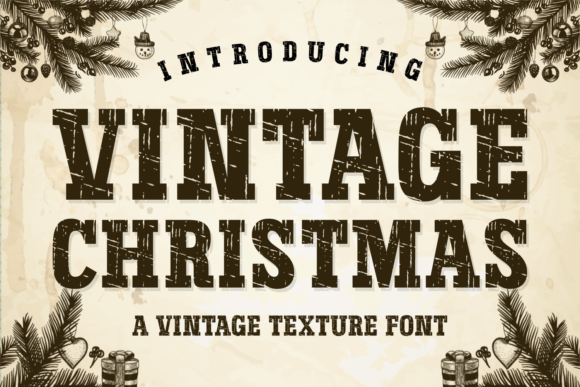
If you’re searching for a timeless, nostalgic typeface to give your holiday designs that classic retro charm, the Vintage Christmas Font is just what you need. This warm, decorative style combines the elegance of old-fashioned lettering with the joyful essence of Christmas.
What Is a Vintage Christmas Font?
A Vintage Christmas Font is a retro-style typeface inspired by old postcards, classic signage, and hand-painted lettering from the mid-1900s. It often features bold curves, ornamental details, and subtle textures that bring a nostalgic feeling — perfect for festive themes.
This kind of font evokes the warmth of handwritten cards, cozy family gatherings, and traditional holiday decorations. Designers often use the Vintage Font Download to bring authenticity and emotional depth to their work.
Common uses include:
Christmas cards and invitations
Holiday posters and banners
Product packaging
YouTube thumbnails and video intros
Event flyers and greeting designs
Whether you’re designing something elegant or playful, the Christmas Vintage Font can help your message feel heartwarming and timeless.
Why Choose a Vintage Christmas Font?
Modern minimalist fonts are great, but sometimes you need that nostalgic touch that reminds people of old-fashioned Christmas charm. The Vintage Christmas Font does exactly that.
Here’s why designers love using it:
Retro Aesthetic: Gives your work a classic, timeless feel reminiscent of traditional print design.
Festive Appeal: Perfectly suited for Christmas and holiday-themed projects.
Versatile Use: Works beautifully in logos, cards, packaging, and posters.
High Readability: Despite its decorative style, the font maintains clear letterforms and balance.
If you’re designing something that needs both elegance and nostalgia, this font offers the best of both worlds.
Where to Use the Vintage Christmas Font
Once you get your Vintage Christmas Font Download Free, you’ll have endless creative options. Here are some ideas for how to use it:
1. Holiday Greeting Cards
Give your cards that timeless print-shop charm with this classic lettering style. It looks beautiful on messages like Merry Christmas or Season’s Greetings.
2. Christmas Product Labels
Design product tags or packaging for gifts, candles, or holiday treats using a Christmas Vintage Font for a premium handmade look.
3. Posters and Flyers
If you’re hosting a Christmas event, fair, or sale, this retro font style immediately sets the festive mood.
4. Digital Banners and Social Media
Create nostalgic-themed graphics for Instagram, Facebook, or websites to stand out from modern flat designs.
5. Home Decor Prints
Typography posters or wall art using vintage-style fonts are trending. The Vintage Font Download can make your DIY decor look stunning and professional.
Design Tips for Using Vintage Fonts in Christmas Projects
To get the best results with your Vintage Christmas Font, keep these simple but effective design tips in mind:
Pair with Script Fonts: Combine it with a cursive or handwritten font to create contrast and warmth.
Use Vintage Colors: Shades like deep red, cream, olive green, or muted gold complement the font’s classic look.
Add Texture: Slight paper texture or grainy backgrounds make the design feel authentic.